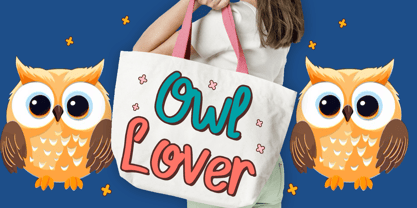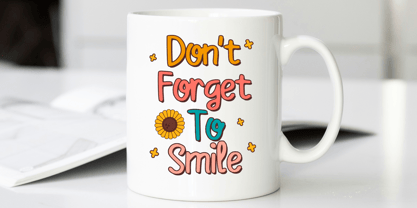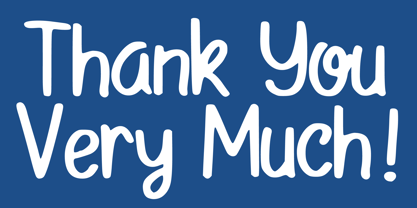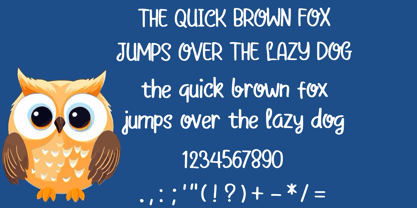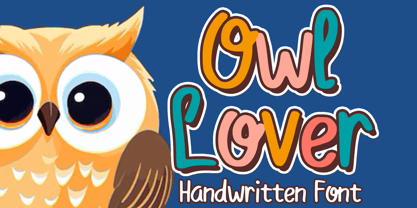
Owl Lover
by Mvmet
The Owl Lover Font Family was designed by Gabriel Valentinus and published by Mvmet. Owl Lover contains 1 styles. More about this family
Owl Lover is a fun and playful marker script font that you can use for many designs themes. It will elevate a wide range of design projects to the highest level. You can use this font for many design ideas such as stickers, t-shirt designs, amazing logo designs, magazine or book covers, comics, cartoon drawings, daily typing, and many more. This font will add a super cool touch to your designs!
Designers: Gabriel Valentinus
Foundry: Mvmet